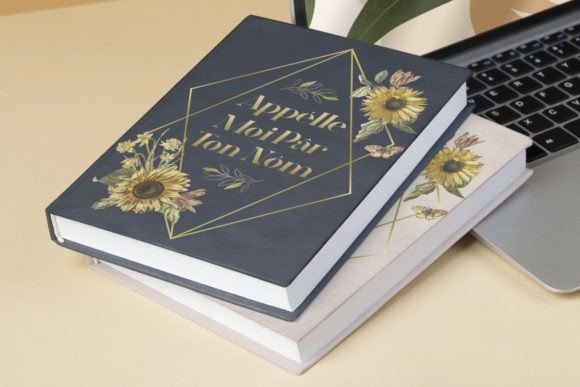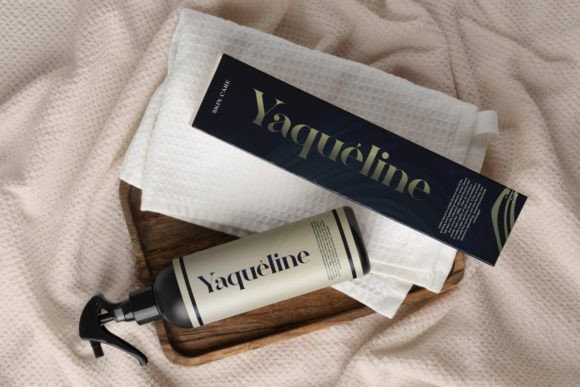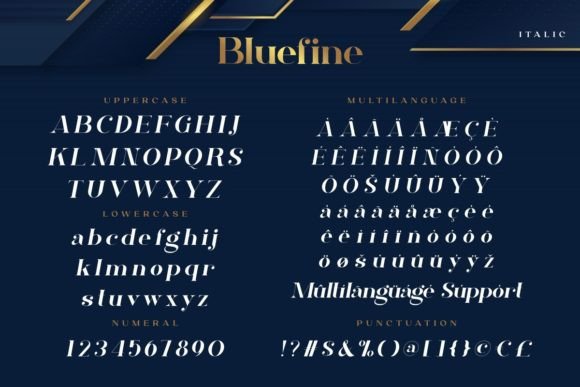
The Quest for Elegance: Discovering Bluefine Font
I’ll never forget the struggle I faced while working on a high-end branding project for a luxury fashion client. The brief was clear: create a sophisticated visual identity that exudes elegance and refinement. But, as I scrolled through my font library, I couldn’t find the perfect match. That was until I stumbled upon Bluefine, a timeless serif font that instantly caught my attention. In this article, I’ll share my experience with Bluefine, its features, and how to make the most of it in your designs.
First Impressions: A Review of Bluefine
- ✨ Elegant details and clean lines that scream sophistication
- ✅ Refined curves and balanced proportions for a harmonious feel
- 💯 Perfect for editorial design, high-end branding, and luxury packaging
- 👍 Highly legible in both print and digital formats
While Bluefine is an exceptional font, it’s not without its quirks. For instance:
- 🤔 It may not be the best choice for body text in smaller sizes, as some details might get lost.
- ⚠️ Some users might find the font a bit too refined for more playful or casual designs.
- Experiment with OpenType features, such as ligatures and stylistic alternates, to add an extra layer of elegance.
Exploring Alternatives: Similar Fonts to Bluefine
If you’re looking for more options, consider these similar fonts:
- Playfair Display: A luxurious, elegant font perfect for headlines and titles. Its refined features and classic feel make it ideal for high-end branding.
- Bodoni Moda: A sophisticated, modern serif font suitable for fashion and luxury brands. Its sleek lines and refined details evoke a sense of elegance.
- Didot: A classic serif font with a sophisticated, elegant feel. Its refined features make it perfect for editorial design, fashion, and luxury packaging.
- Merriweather: A classic serif font with a elegant, refined feel. Its subtle details and balanced proportions make it suitable for body text and long-form content.
The Story Behind Bluefine: Designer Inspiration
Bluefine was designed with the goal of creating a timeless, elegant serif font that embodies sophistication and refinement. Inspired by classic typography and modern design principles, Bluefine’s creator aimed to craft a font that would excel in editorial design, high-end branding, and luxury packaging. The result is a font that exudes elegance and poise, perfect for designers seeking to elevate their projects.
Q: What makes Bluefine suitable for high-end branding?
A: Bluefine’s elegant details, refined curves, and balanced proportions create a sophisticated visual identity that commands attention and exudes luxury.
Q: Can I use Bluefine for body text?
A: While Bluefine is highly legible, it may not be the best choice for body text in smaller sizes. Consider using it for headlines, titles, or short paragraphs for maximum impact.
Q: Does Bluefine support OpenType features?
A: Yes, Bluefine supports OpenType features, including ligatures, stylistic alternates, and glyphs. Experiment with these features to add an extra layer of elegance to your designs.
Q: Is Bluefine suitable for digital applications?
A: Absolutely! Bluefine’s clean lines and refined details ensure it remains legible and elegant in digital formats, making it perfect for websites, social media, and more.